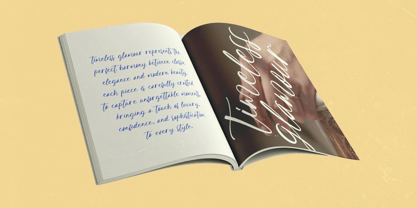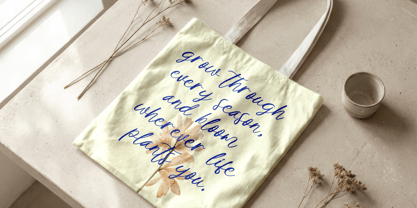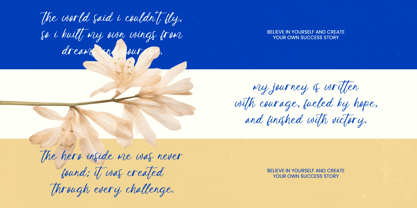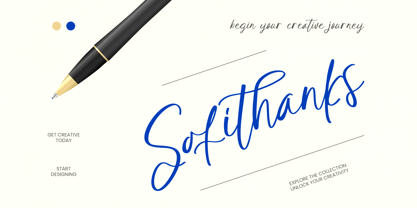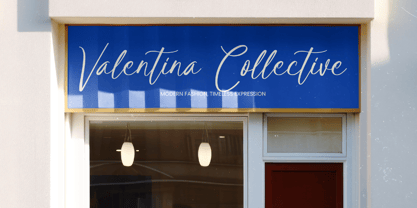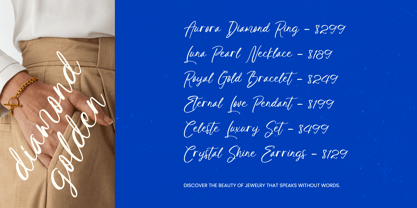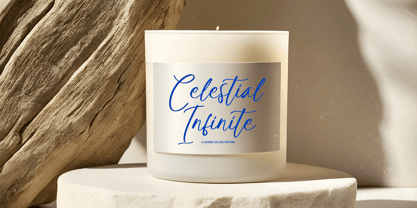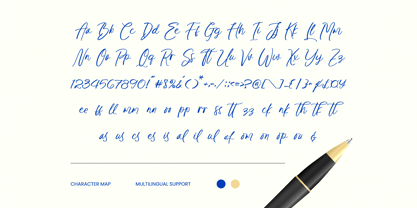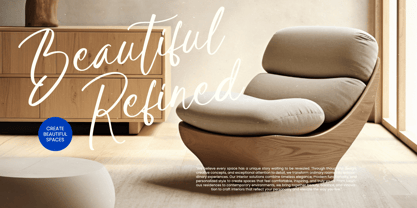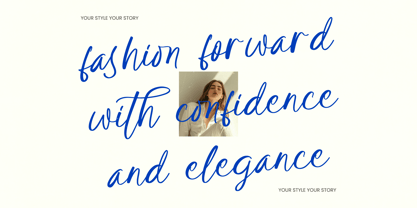
Sofithanks
Discover the effortless elegance of Sofithanks, a contemporary script designed to bring a touch of artisanal grace to your creative canvas. This typeface is more than just letters; it is a fluid expression of style that transforms every word into a visual melody.
Inspired by the delicate precision of a high-end fountain pen, the design reflects a journey of hand-crafted excellence and sophisticated rhythm. Its flowing strokes capture the essence of high-society invitations and the intimate feel of a personal signature written with care.
While this typeface moves with more fluidity than a traditional modern serif display, it maintains a world-class luxury typography presence. It offers the visual weight of a high-contrast serif through a calligraphic lens, serving as a premier editorial font that guarantees a massive branding impact.